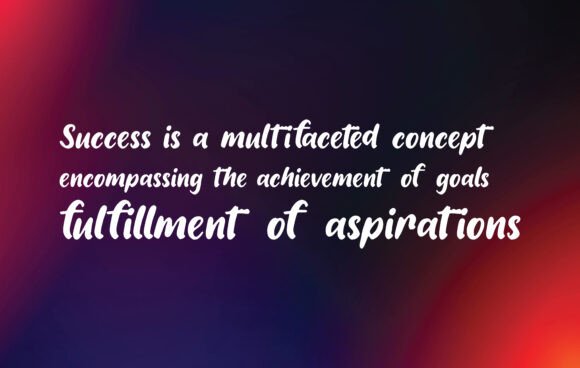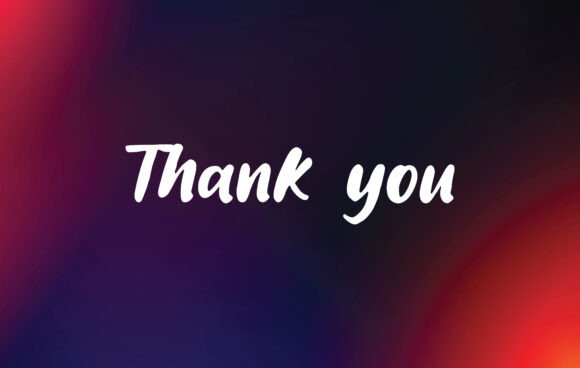
Astransia Font: Elevate Your Creative Projects with Elegance
In the world of typography, fonts play a crucial role in bringing creative ideas to life. Among the numerous fonts available, Astransia stands out as a lovely and beautiful handwritten font that has the potential to take your projects to new heights. In this article, we’ll explore the features and benefits of Astransia, making it the perfect choice for designers, crafters, and anyone looking to add a touch of elegance to their work.
The Beauty of Astransia
Astransia is a stunning handwritten font that exudes elegance and sophistication. Its unique and flowing script makes it perfect for creating eye-catching logos, branding materials, and quotes. The font’s intricate details and beautiful strokes will add a touch of refinement to any project, making it stand out from the crowd.
Unleash Your Creativity with Astransia
Whether you’re a designer, crafter, or entrepreneur, Astransia is the ideal font to help you bring your creative ideas to life. Its versatility and flexibility make it suitable for a wide range of projects, from:
- Logos and branding materials: Create a lasting impression with Astransia’s elegant script.
- Quotes and posters: Add a touch of sophistication to your inspirational quotes and posters.
- Stationery and greeting cards: Elevate your stationery and greeting cards with Astransia’s beautiful handwritten font.
- Digital and print media: Use Astransia in your digital and print media to add a touch of elegance and refinement.
Why Choose Astransia?
So, what makes Astransia a top choice among fonts? Here are some compelling reasons:
- Unique and elegant script: Astransia’s beautiful handwritten font will add a touch of sophistication to any project.
- High-quality design: The font is carefully crafted to ensure that every stroke and detail is perfect.
- Versatility: Astransia is suitable for a wide range of projects, from logos and branding to quotes and posters.
- Easy to read: Despite its elegant script, Astransia is easy to read, making it perfect for body text and headlines.
Tips for Using Astransia Effectively
To get the most out of Astransia, here are some tips for using the font effectively:
- Use it sparingly: Astransia’s elegance and sophistication can be overwhelming if used excessively. Use it sparingly to create a lasting impression.
- Pair it with complementary fonts: Pair Astransia with complementary fonts to create a harmonious and balanced design.
- Experiment with colors and textures: Astransia looks stunning in a variety of colors and textures. Experiment to find the perfect combination for your project.
In conclusion, Astransia is a lovely and beautiful handwritten font that has the potential to elevate your creative projects to new heights. Its unique and elegant script, versatility, and high-quality design make it the perfect choice for designers, crafters, and anyone looking to add a touch of sophistication to their work. With Astransia, you can create eye-catching logos, branding materials, and quotes that will leave a lasting impression.